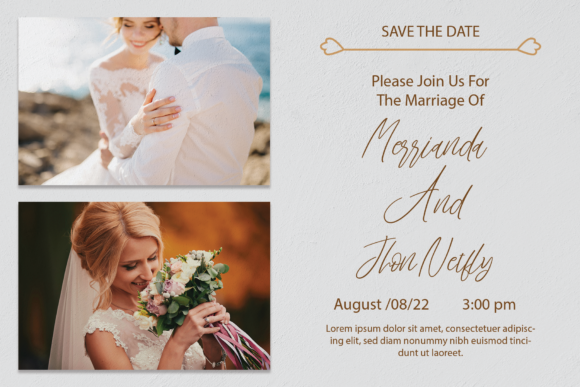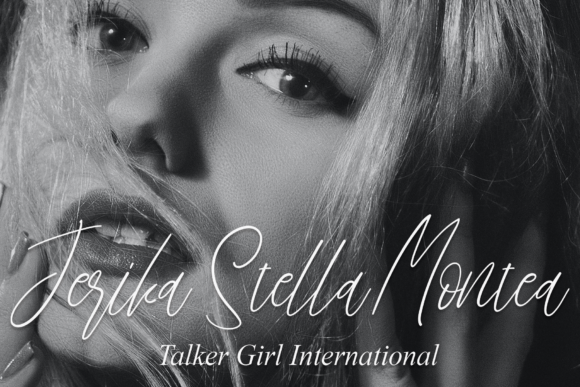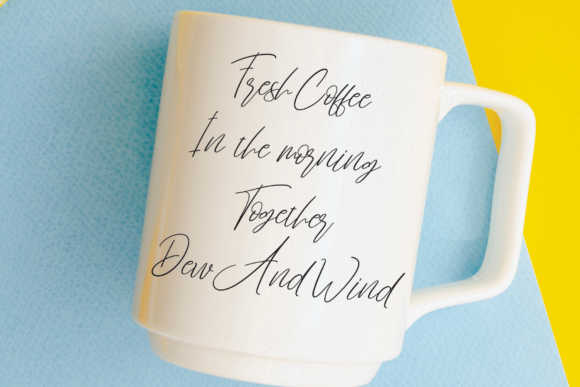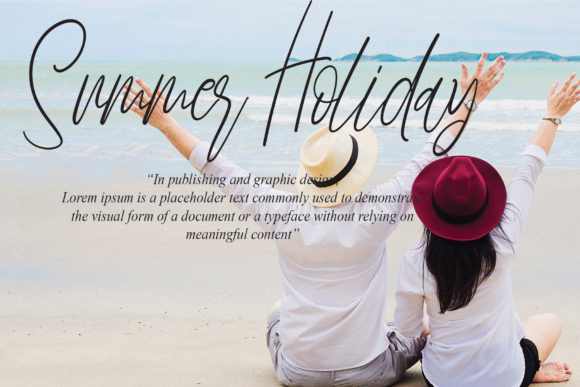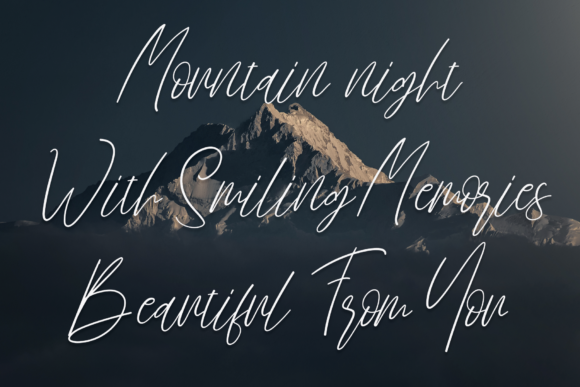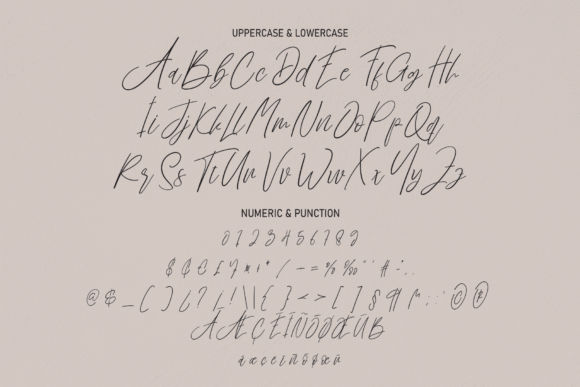
The Perfect Font for Your Masterpiece
Remember that moment when a spark of creativity hits you, and you know exactly what your next project is going to be? For designers, this feeling is all too familiar. It’s the thrill of bringing a concept to life, of crafting a visual identity that resonates with your audience. And sometimes, all it takes is the right font to elevate your design from good to extraordinary.
Enter the Brillian Signature Font, a sleek and stylish script font that’s perfect for any branding project. Whether you’re designing logos, t-shirts, or creative products, this font is sure to make a statement. Its thin lettering and elegant curves add a touch of sophistication to any design, making it a valuable asset for designers looking to take their work to the next level.
With the Brillian Signature Font, the possibilities are endless. Its versatility and unique style make it an ideal choice for a wide range of applications, from business cards to merchandise. And with its high-quality design, you can trust that your project will look extraordinary in any context.
Brillian Signature Font Key Features
- Font Family: Brillian Signature Font is a unique, high-end font designed for signature creation, with a focus on elegance and sophistication.
- Unique Characteristics: Brillian Signature Font features intricate details, subtle flourishes, and a distinctive flair, making it perfect for creating unique and memorable signatures.
Designer Review: Brillian Signature Font
I recently had the chance to work with the Brillian Signature Font, and I must say it’s been an interesting experience. Here are my thoughts on what works well and what doesn’t.
- The font’s elegant and sophisticated design is perfect for high-end branding and luxury projects.
- The extensive character set and language support make it a great choice for international projects.
- The font’s high x-height and well-spaced letters make it highly legible, even at smaller font sizes.
- The font’s lack of bold and italic styles can make it difficult to create visual hierarchy in some designs.
- The font’s high contrast between light and dark areas can make it prone to over- or under-exposure in certain design elements.
- The font’s file size is relatively large, which can be a concern for web designers who need to optimize their fonts for faster loading times.
Overall, I think the Brillian Signature Font is a great choice for designers who need a high-end, sophisticated font for luxury branding and international projects. However, its limitations should be carefully considered before using it in your next project.
Use the Brillian Signature Font to create a unique and professional-looking signature or heading.
Experiment with different font sizes, colors, and styles to achieve the desired look.
Use the font in combination with other design elements, such as graphics and images, to create a visually appealing design.
The Brillian Signature Font is ideal for:
Creating a professional-looking signature for business cards, letters, and emails.
Designing headings and titles for presentations, reports, and documents.
Adding a touch of elegance and sophistication to digital and print designs.